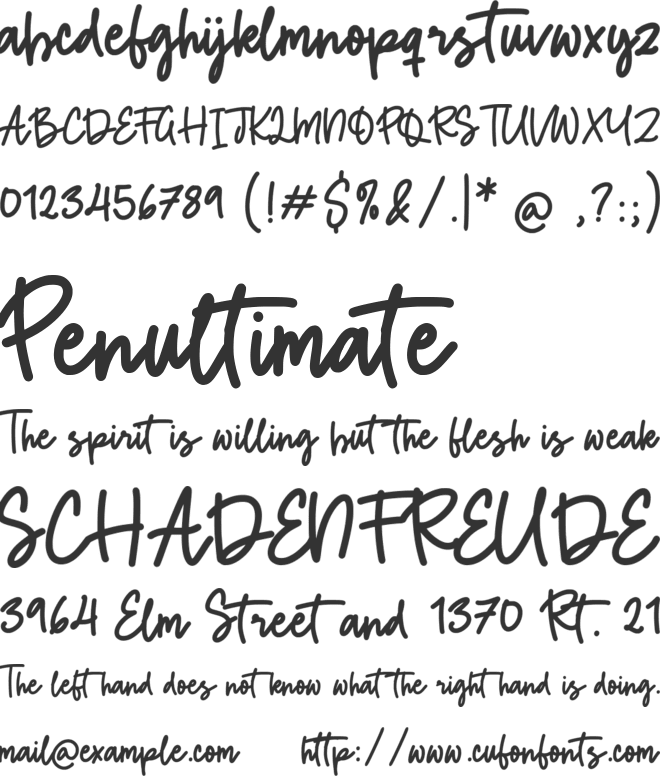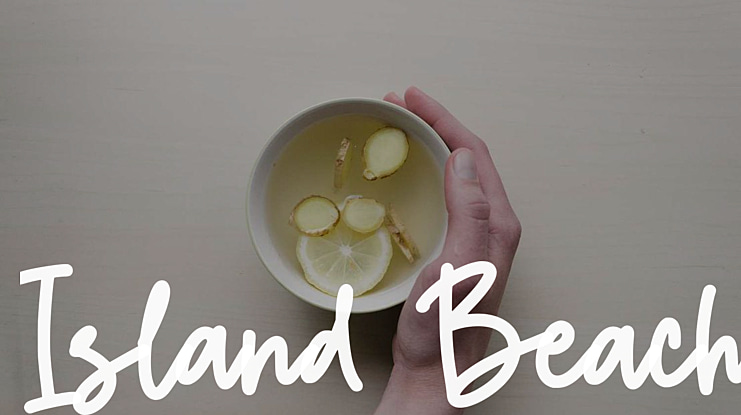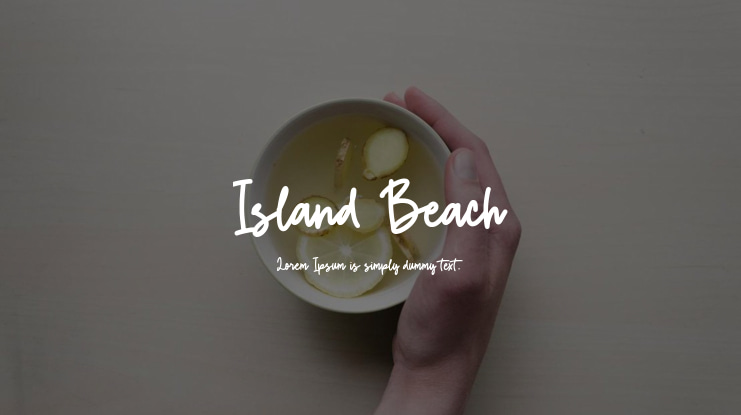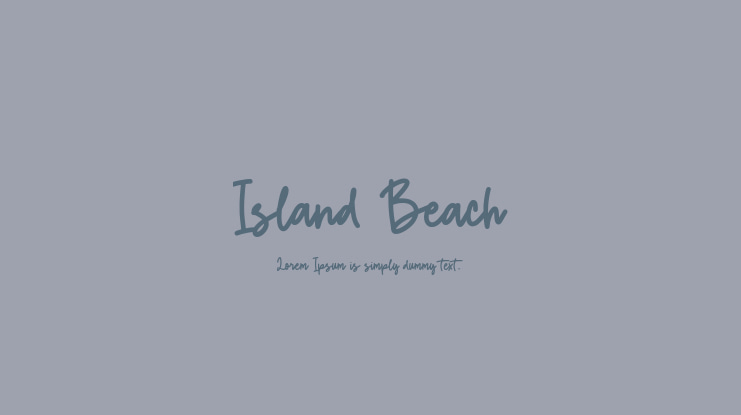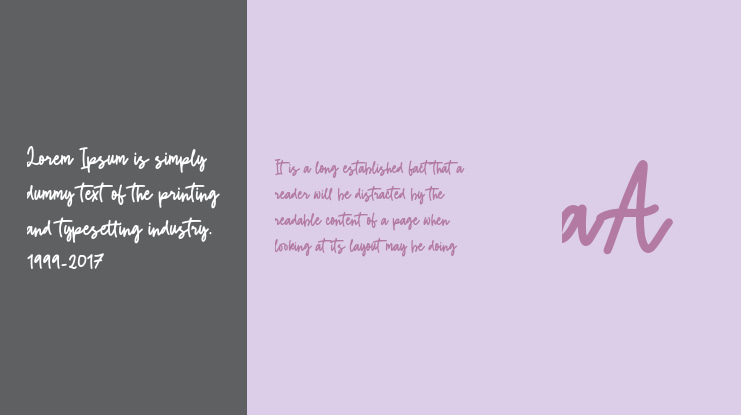
Island Beach Font
Introducing Island Beach - a stunning Modern Calligraphy font that exudes cleanliness, elegance, and versatility for any design project. With its smooth and effortless lines, this font presents an understated sophistication that is both modern and timeless.
Crafted with meticulous precision and care, Island Beach is truly versatile and can be utilized for a wide range of design projects. Whether it's logos, branding, invitations, packaging, and more, this font will elevate any creative endeavor. Its simple yet refined aesthetic is guaranteed to leave a lasting impression on anyone who lays eyes on it.